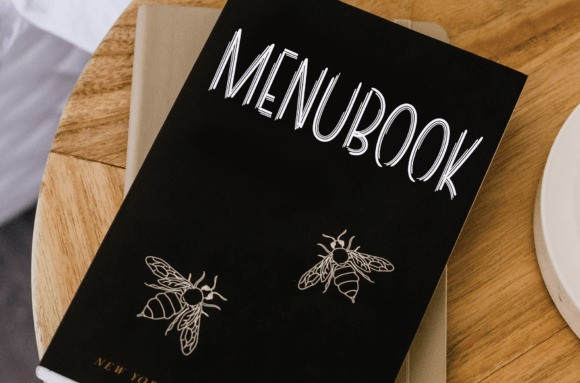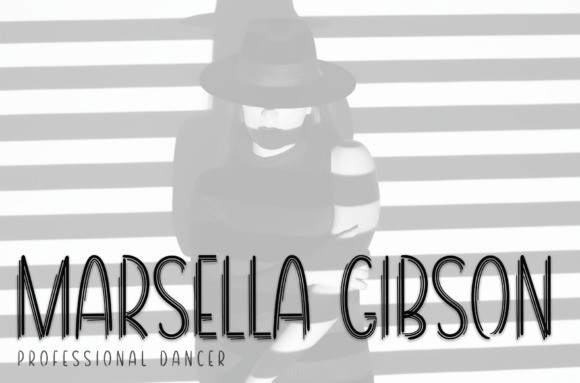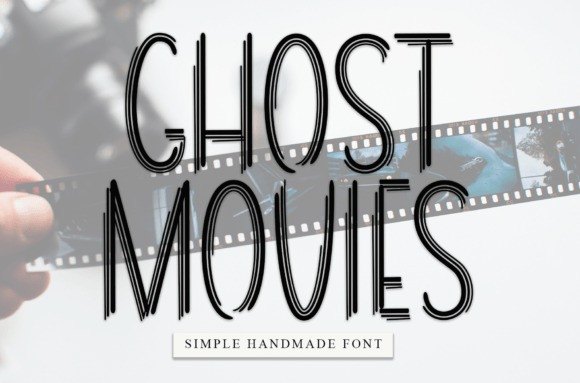
Ghost Movies Font
Ghost Movies Font is a cool and unique display font. Modern and fresh, this font is ideal for posters, cards, stickers, or any other design that might need a fun touch!